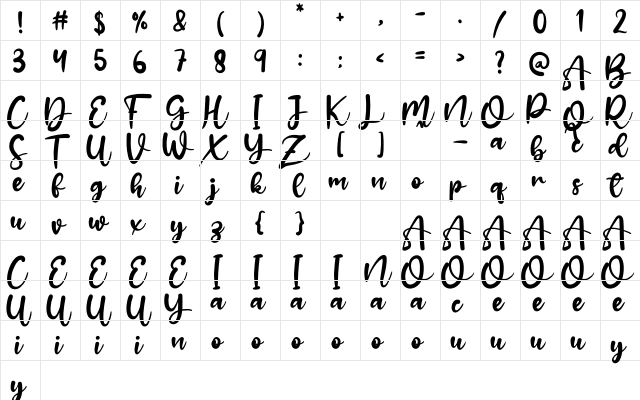
Farmhouse Christmas Regular
Design Context for Farmhouse Christmas Typeface
Farmhouse Christmas is a composed and adaptable typeface that performs quietly and consistently across a wide range of design contexts.